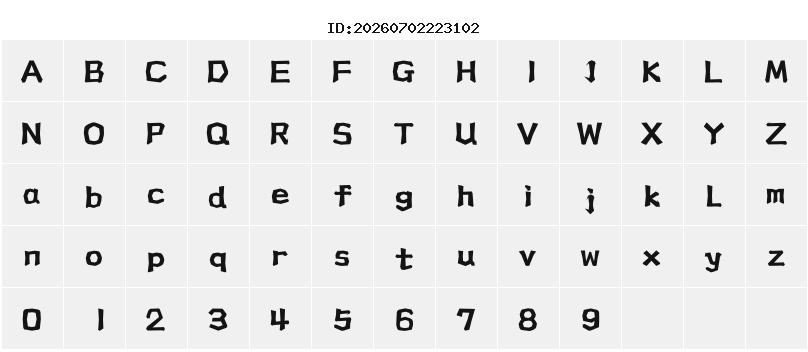
• Font Name: 280-上首英雄体
• Manufacturer: 上首造字
About 280-上首英雄体.ttf
280-上首英雄体.ttf is a modern, elegant sans-serif font designed for ultimate readability and visual harmony. Perfect for branding, headlines, web design, and print materials.